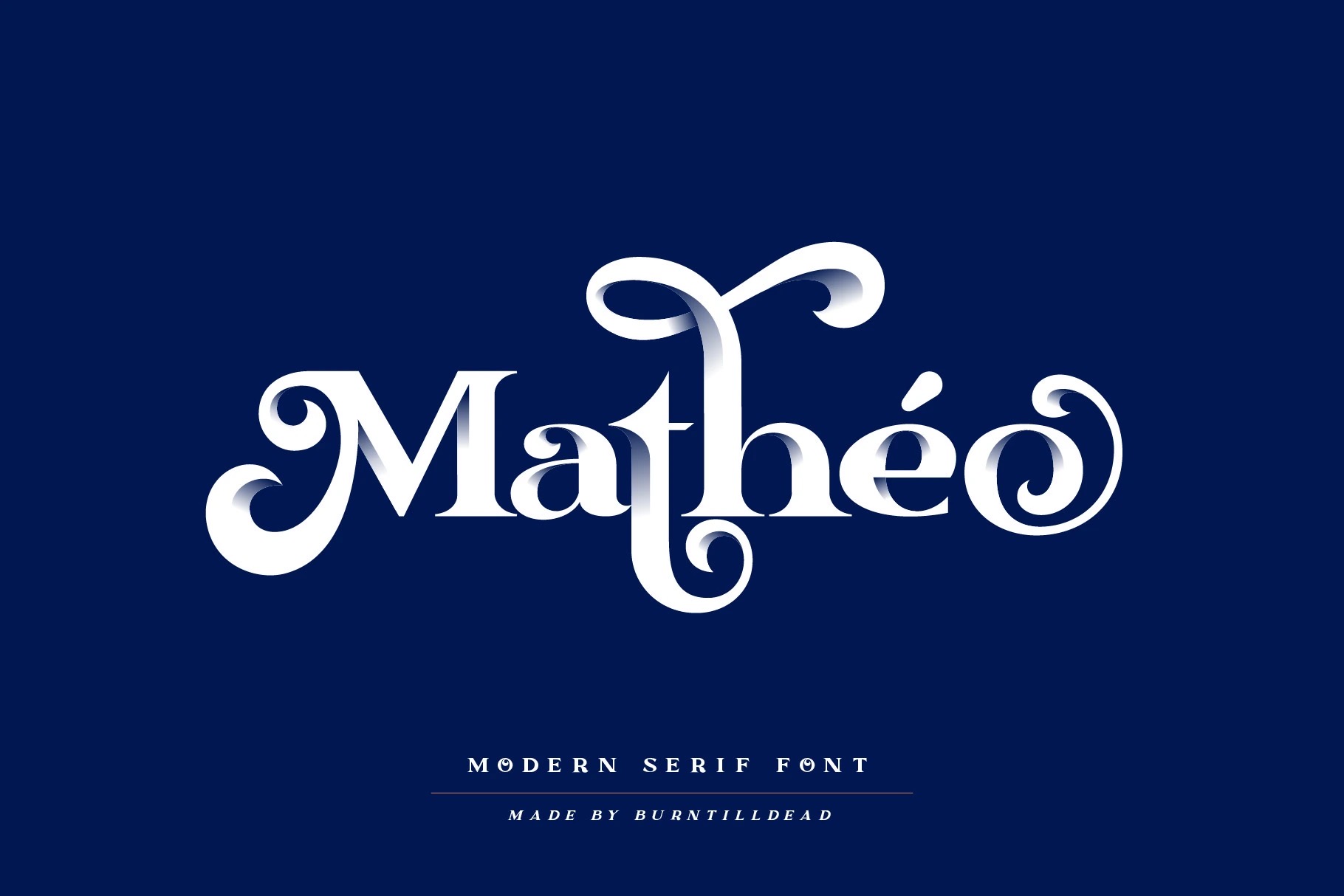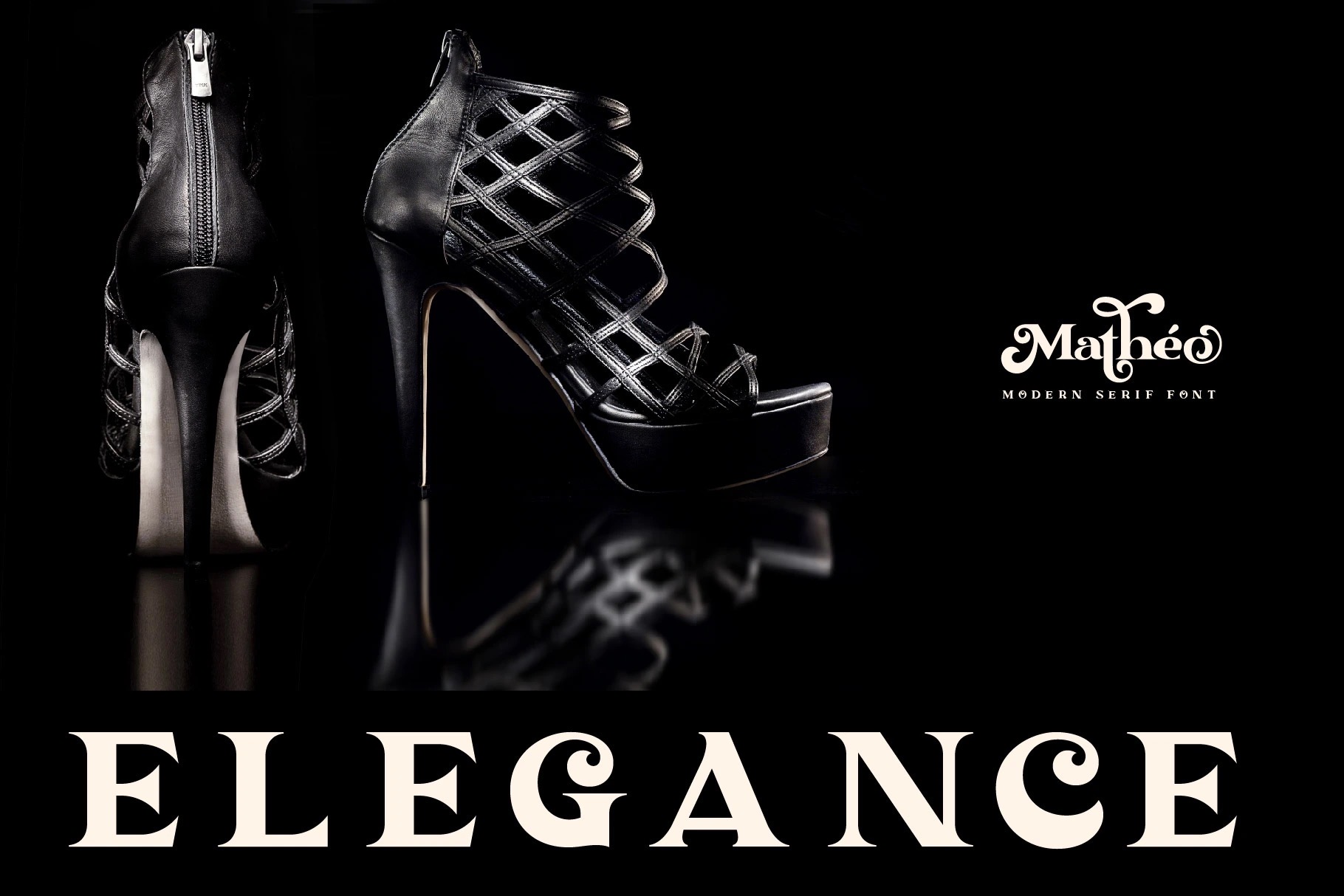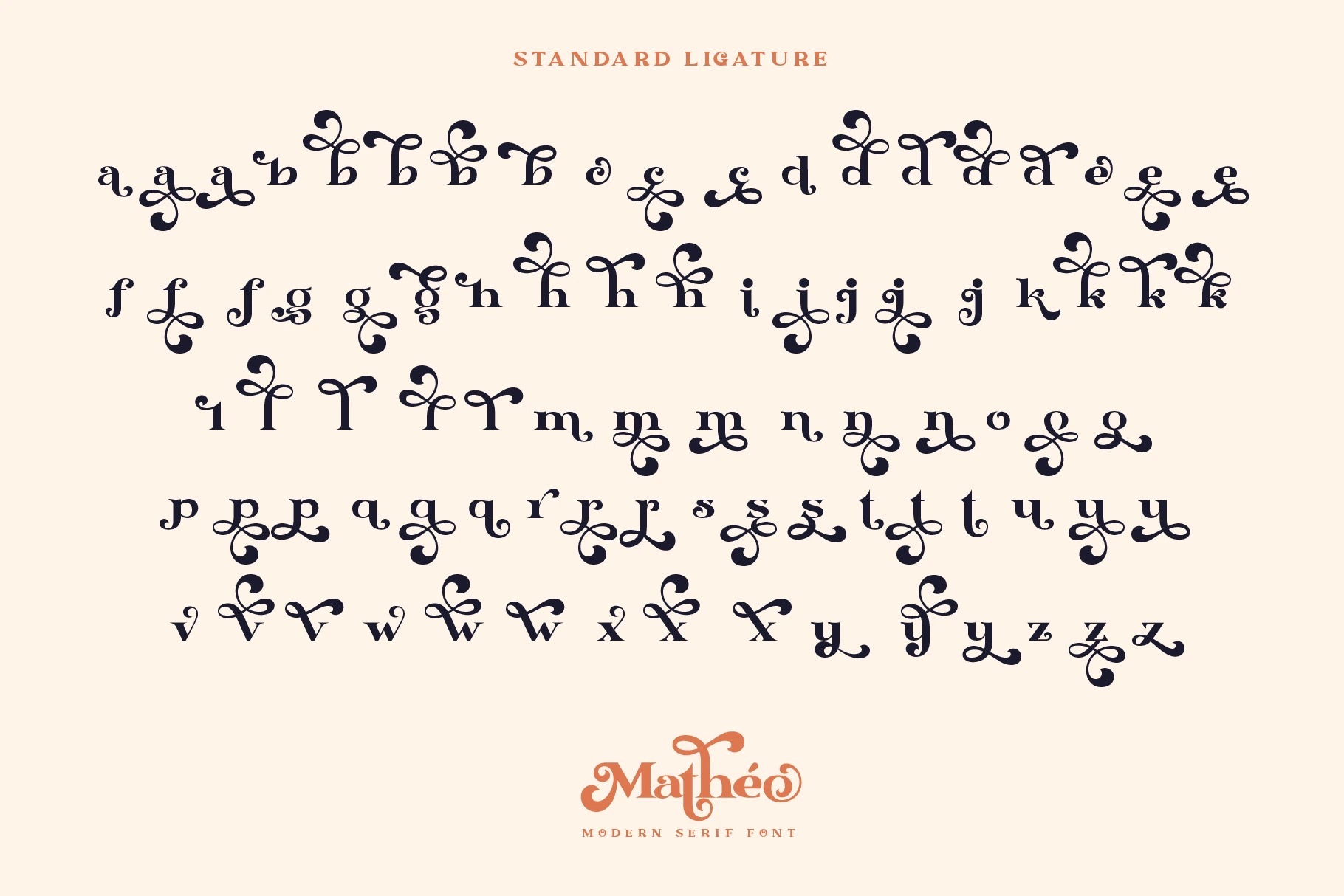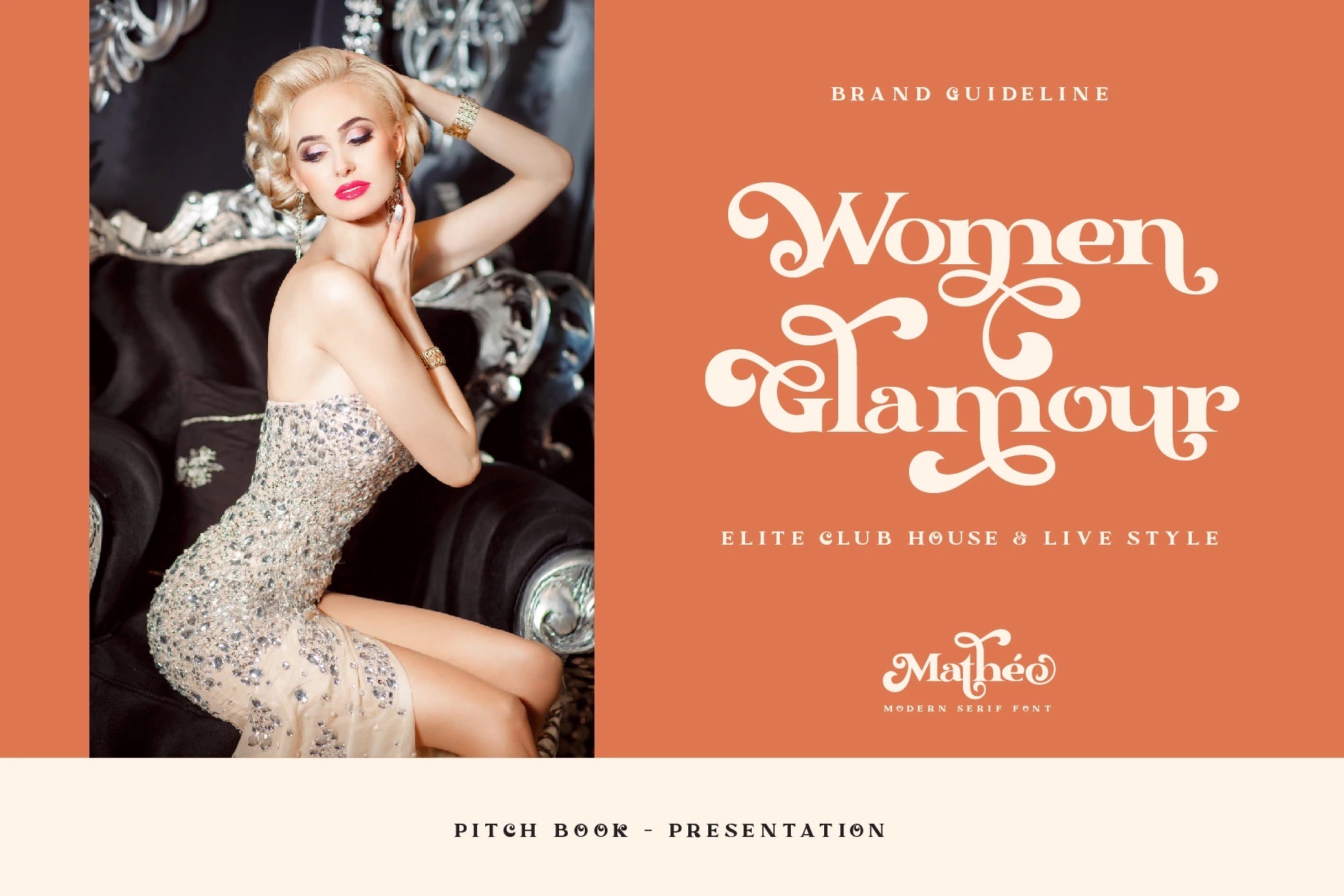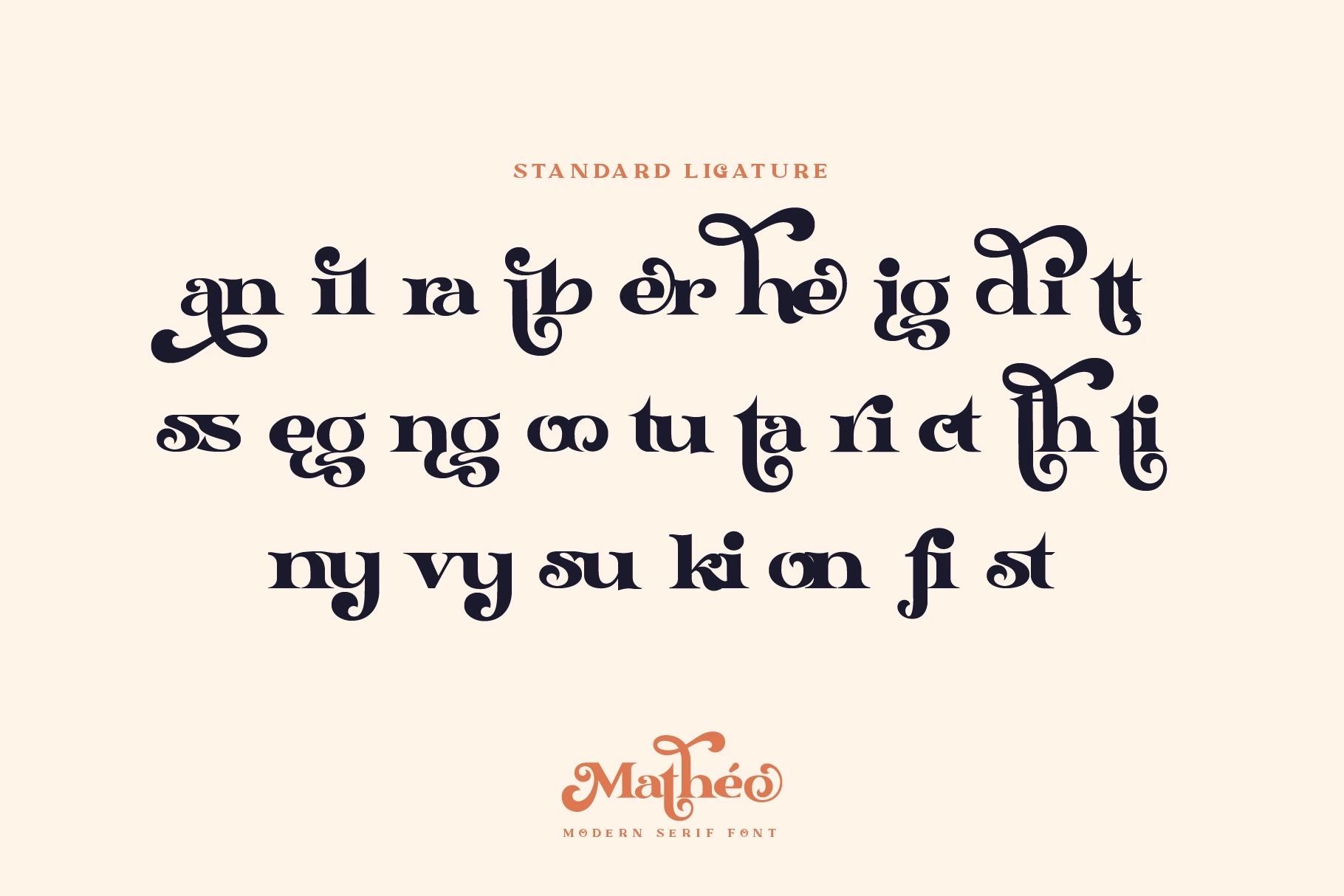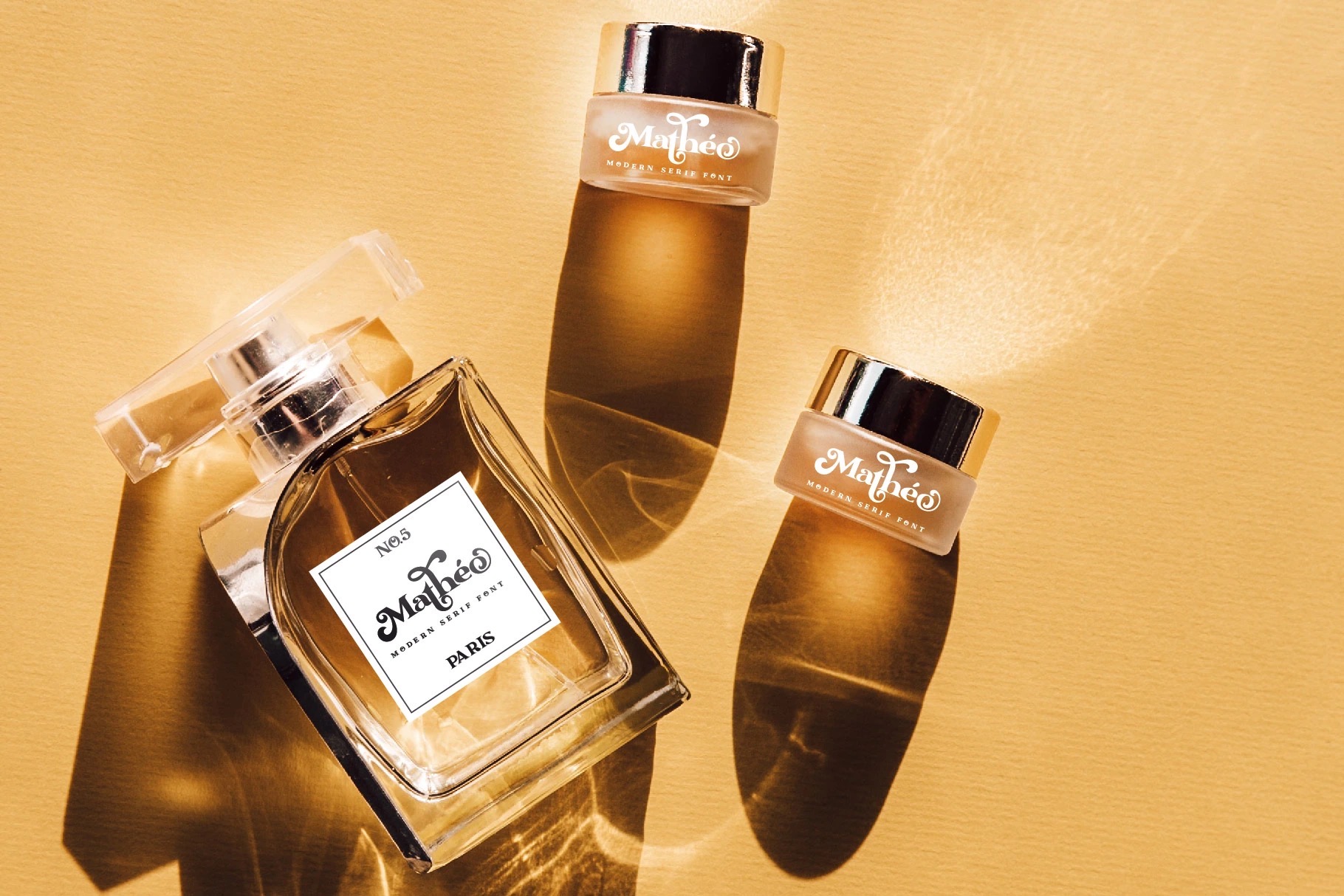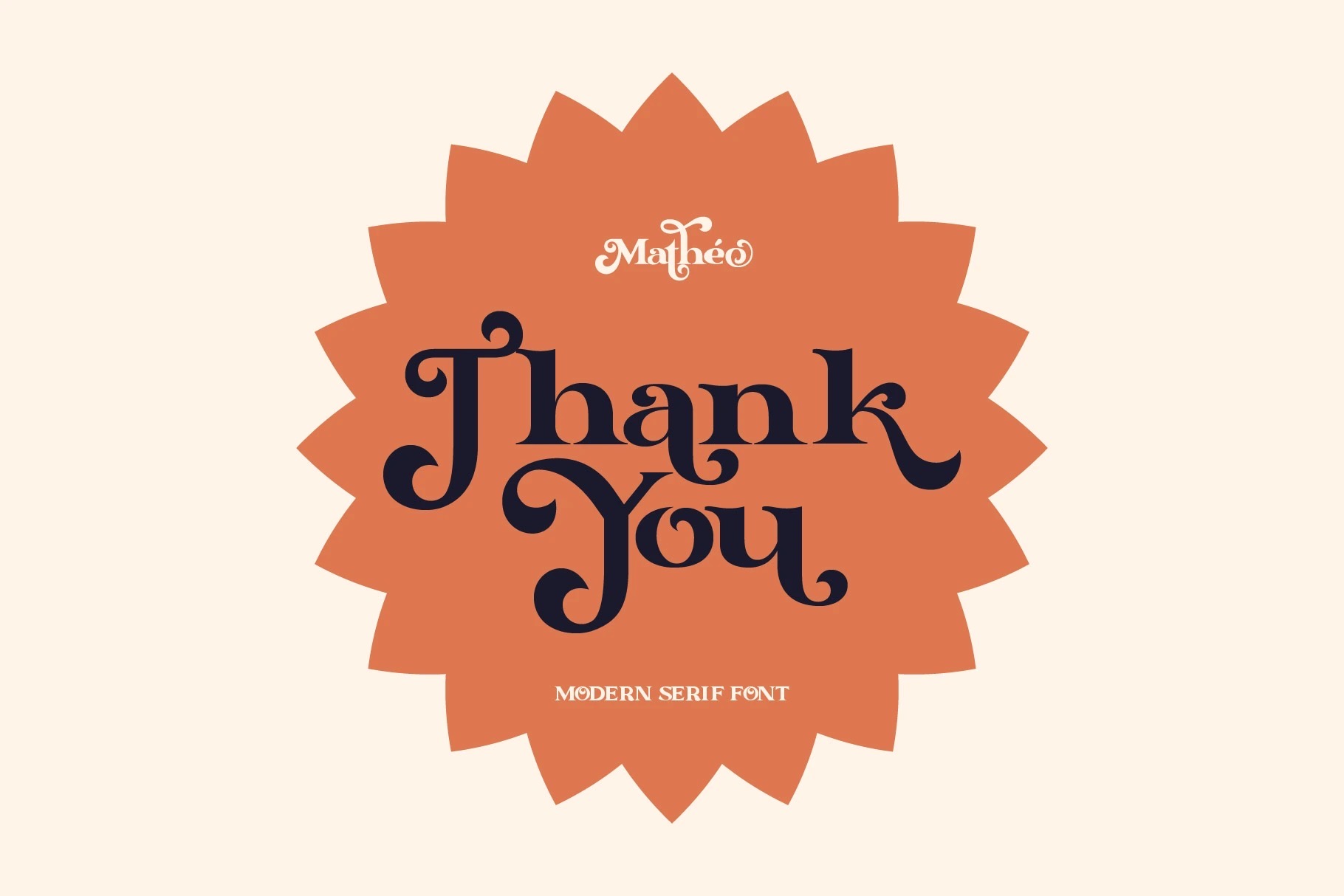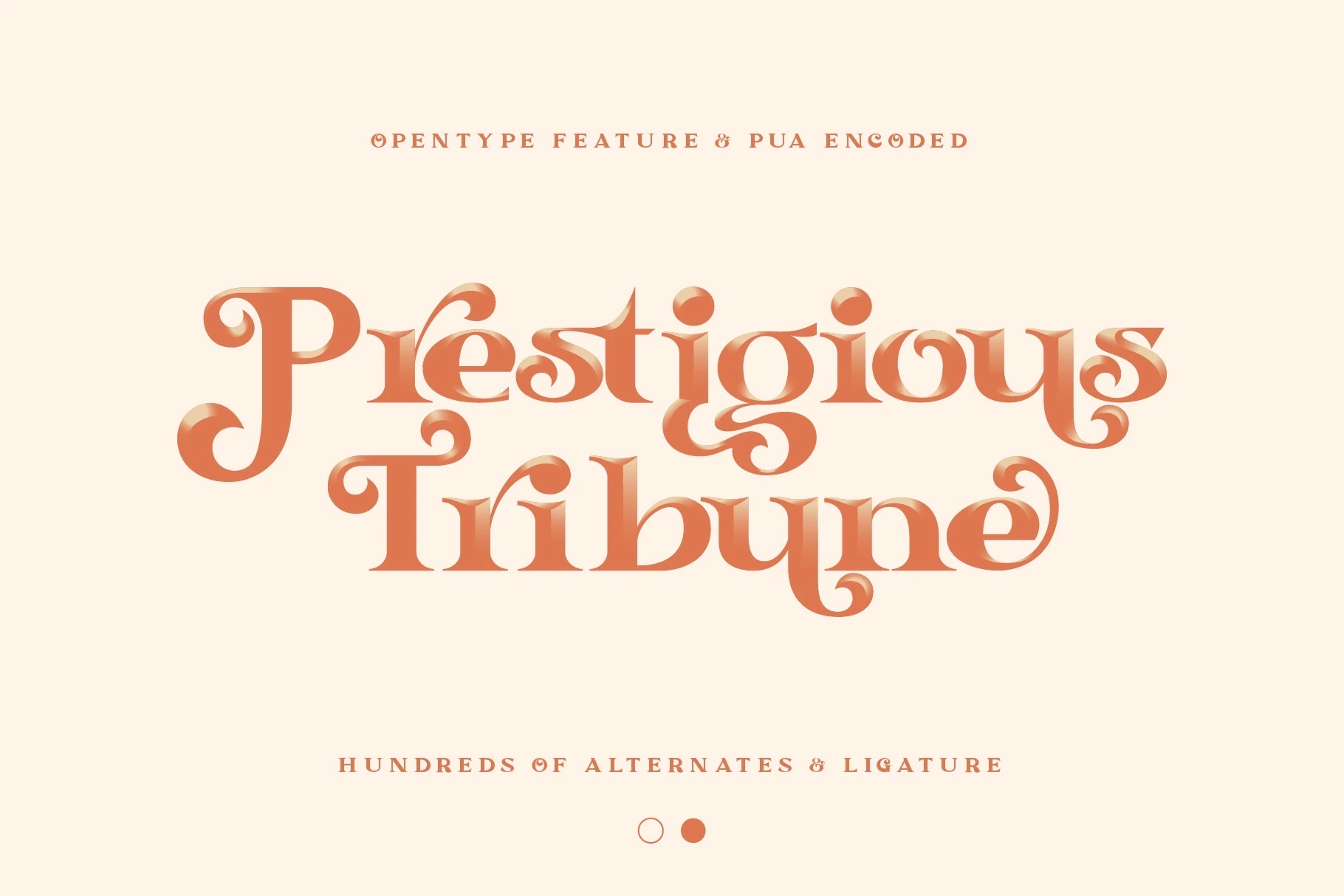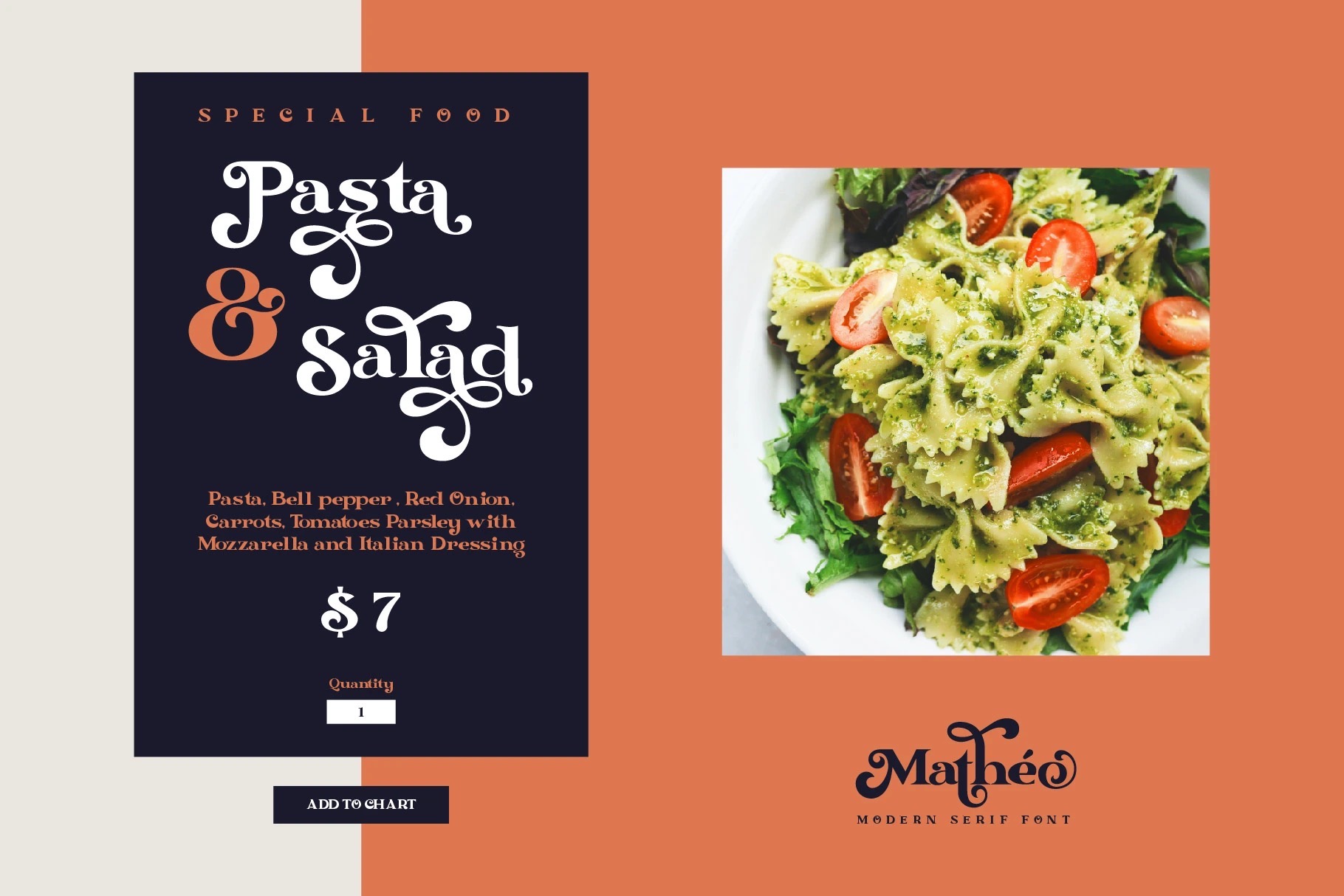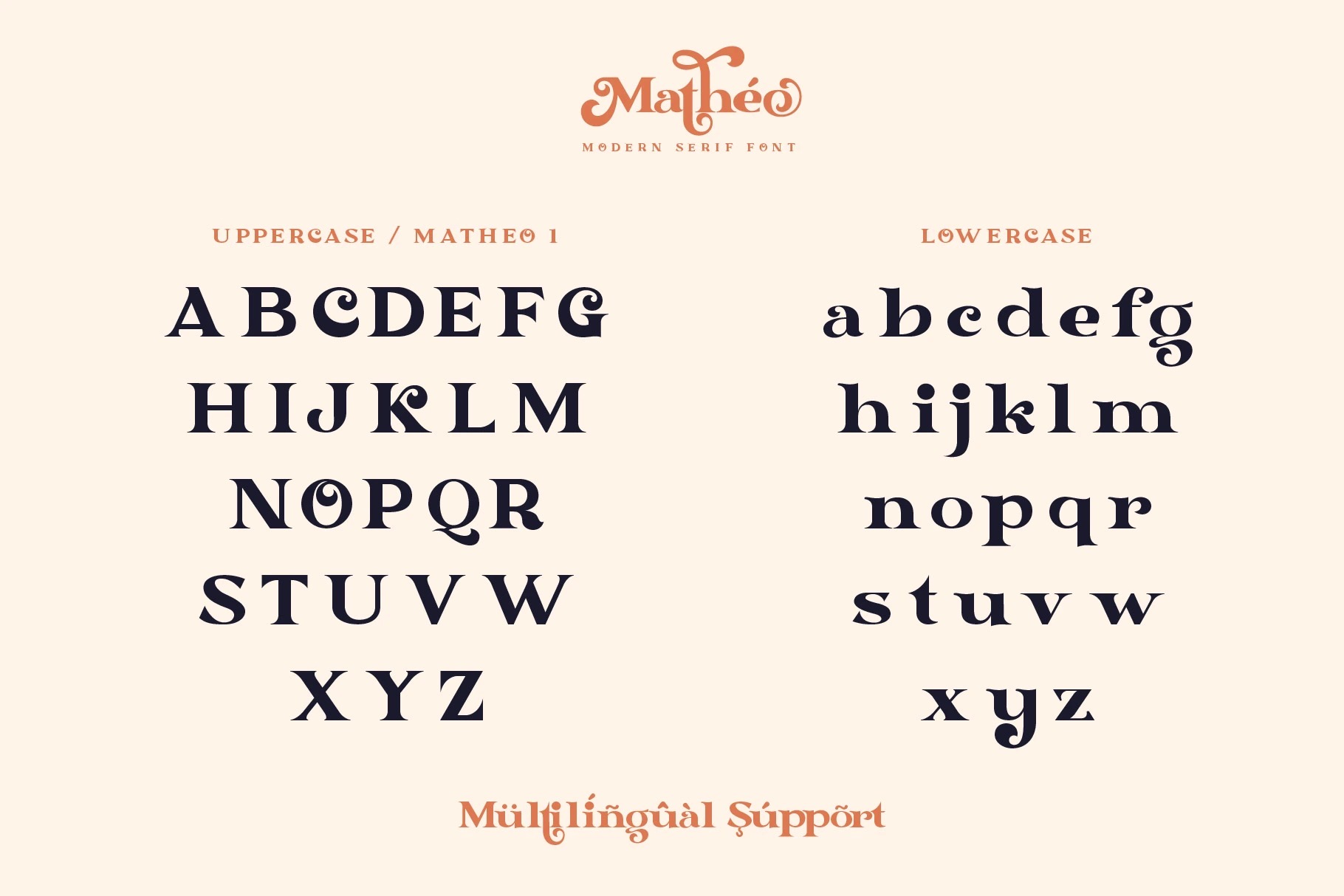
Proudley present “Matheo” a modern serif font. Powered with +140 alternate characters & 26 ligature. Really easy to use & bring standout looks once you play with the combination.
Perfect and suitable for branding, headline, logotype, sticker, editorial design, and etc.